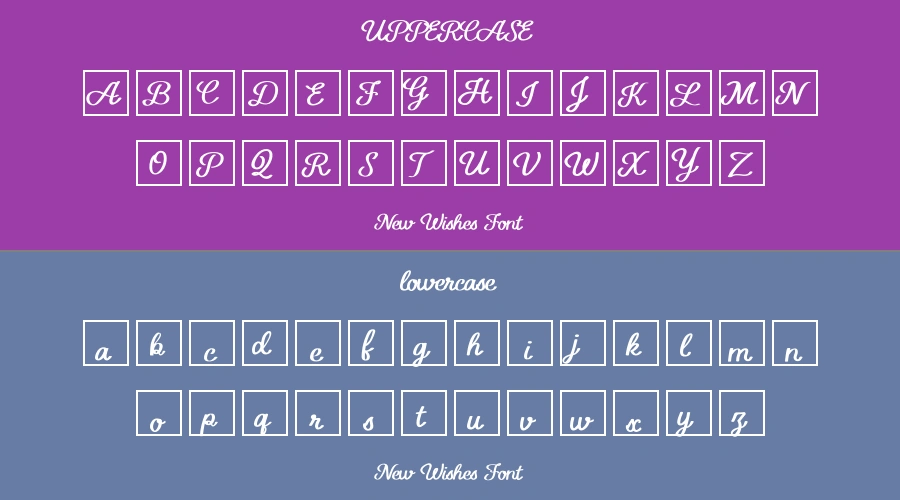
About New Wishes Font
Designed with precision, New Wishes Font merges impactful forms with durability in every character. This versatility makes it particularly effective for poster titles, where clarity and creative potential directly impact communication quality. Each letterform demonstrates meticulous craftsmanship.
Technical excellence shines through elements like flourishes and authentic details, enhancing typographic versatility. In creative titles settings, New Wishes Font proves its worth through superior detail preservation. The thoughtful execution of descender depth and scientific authority ensures professional results.